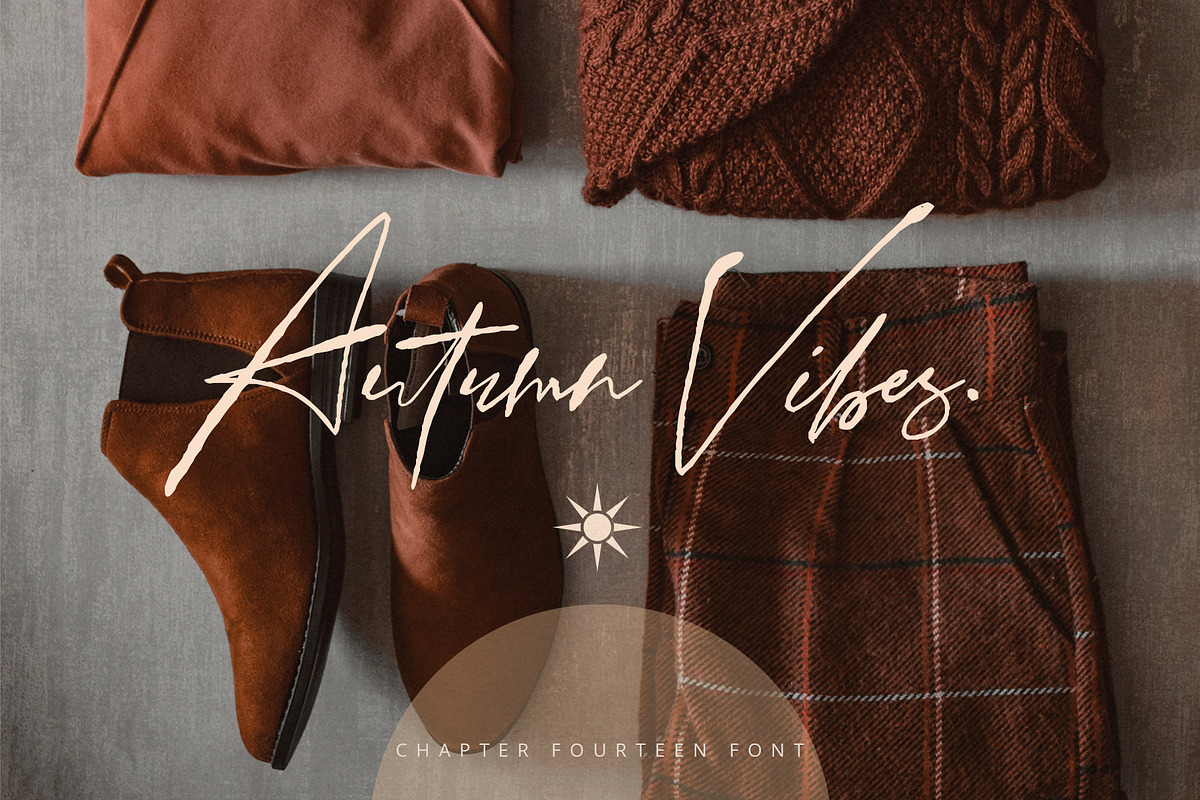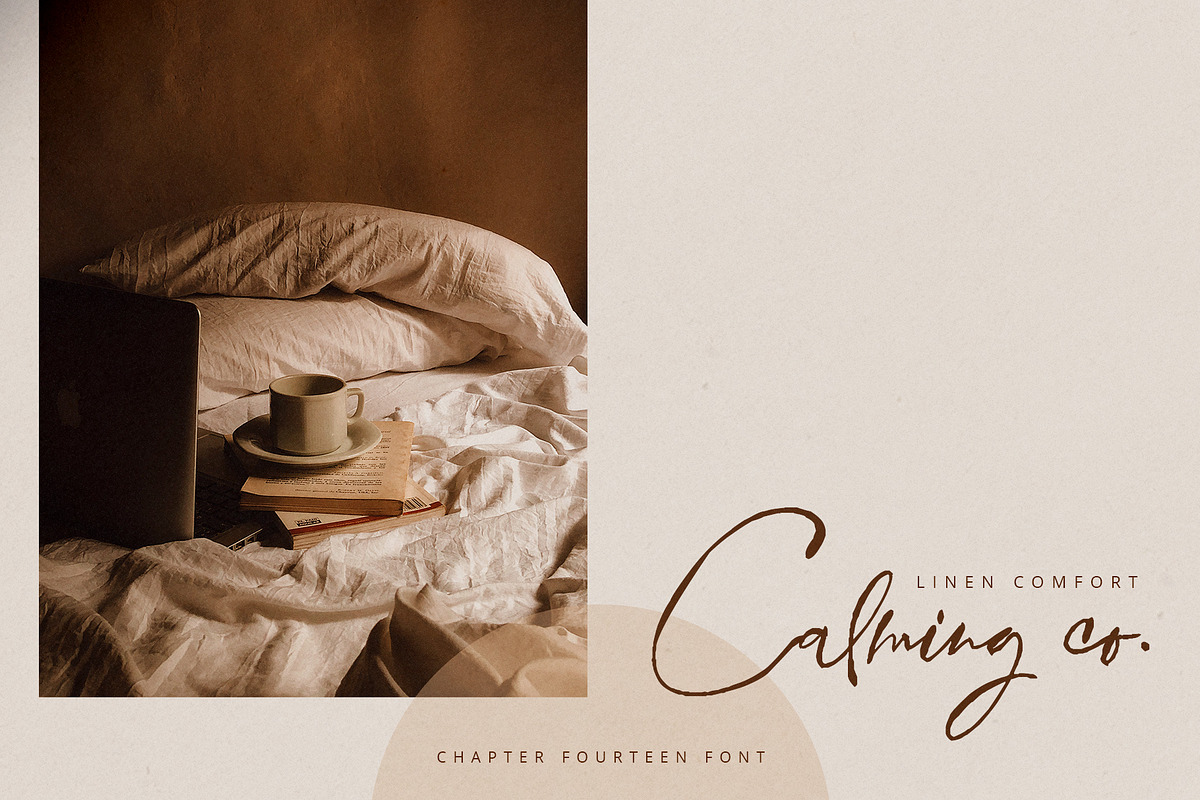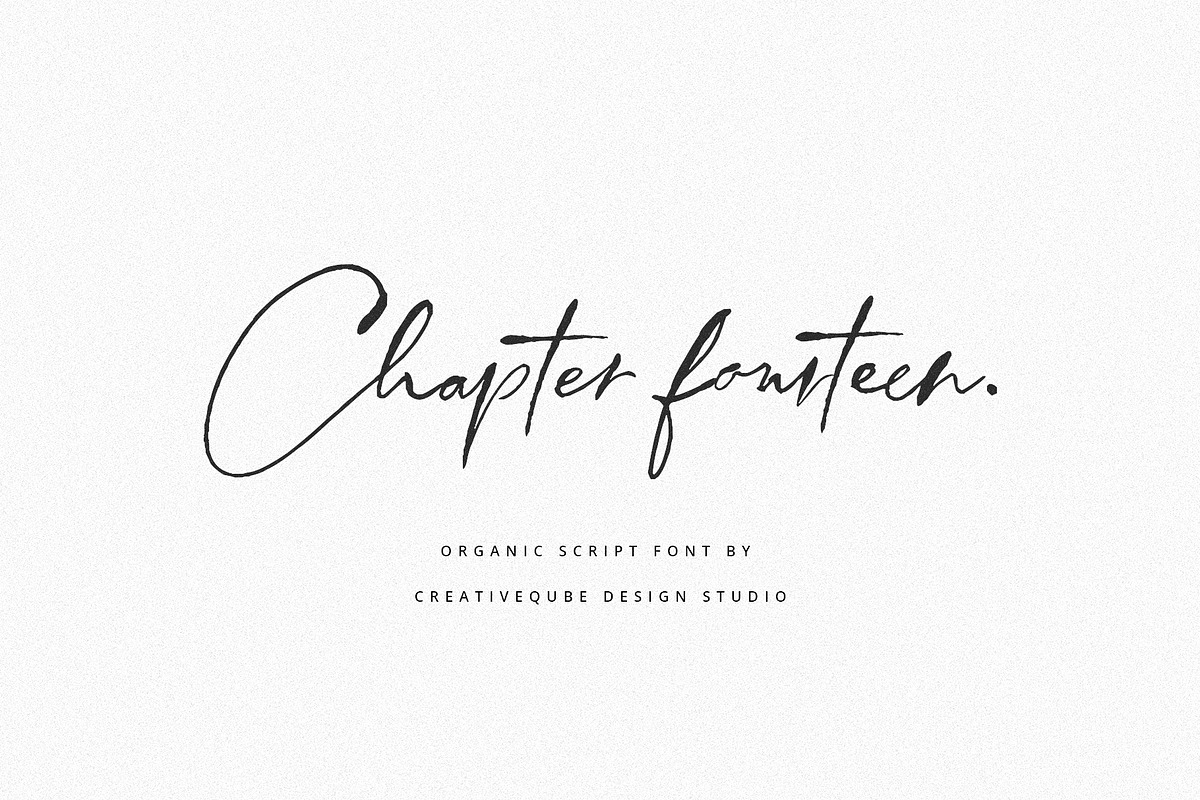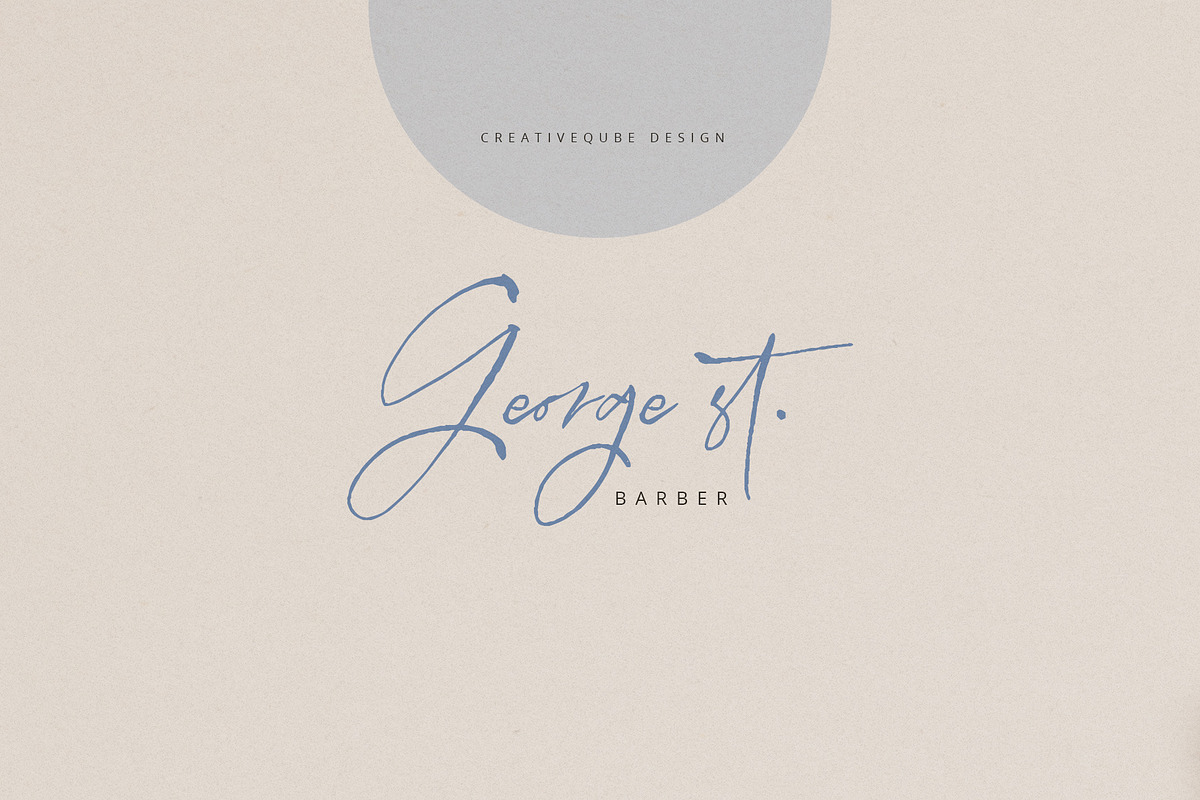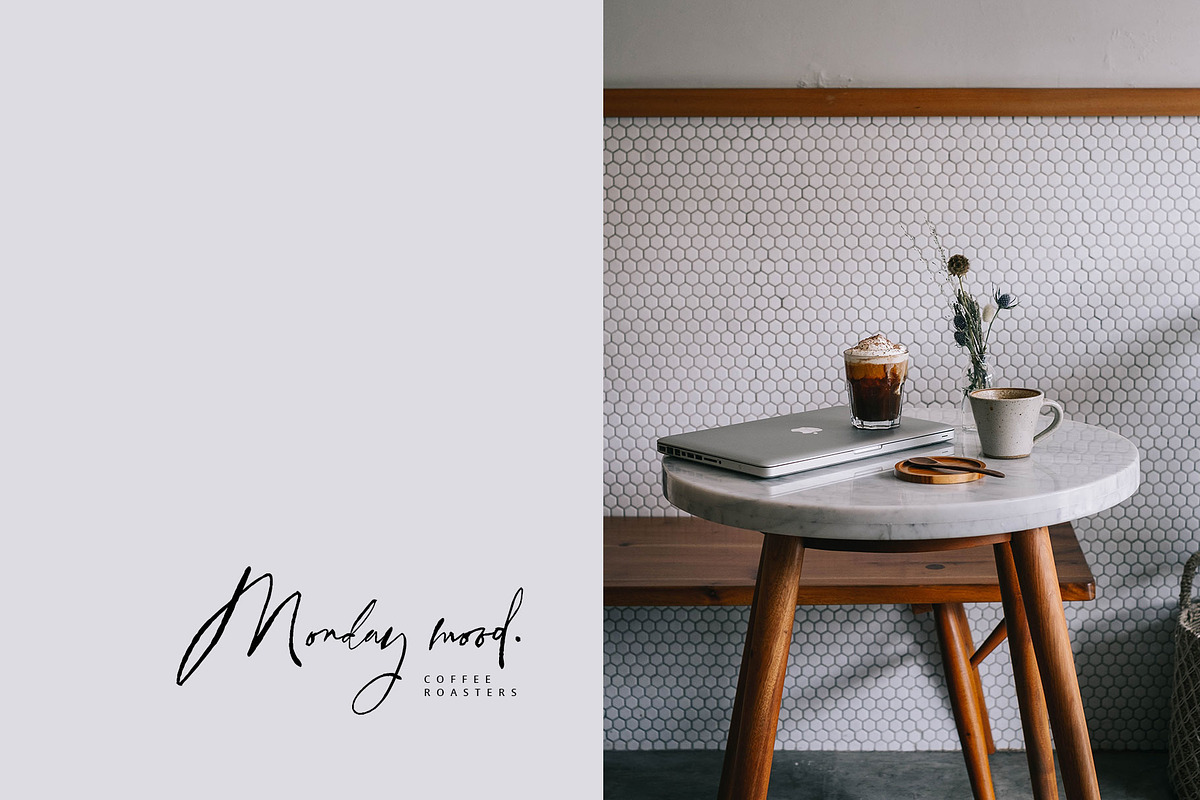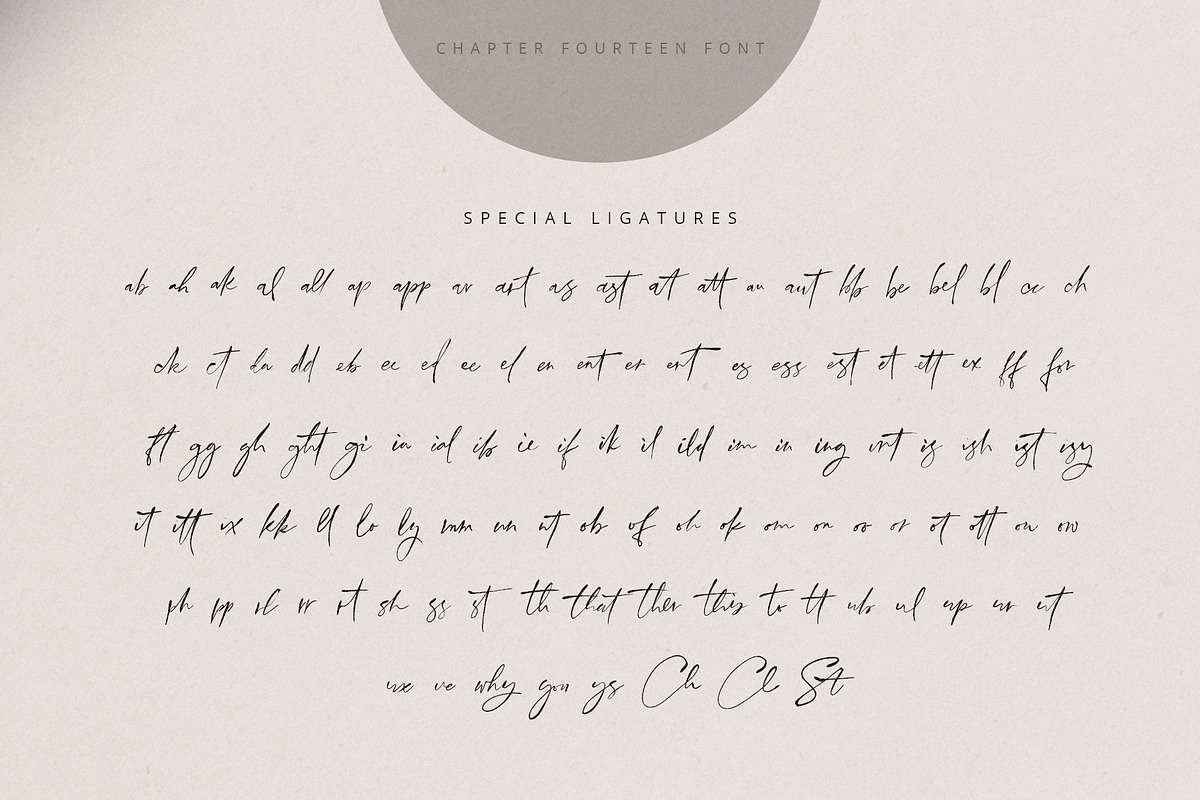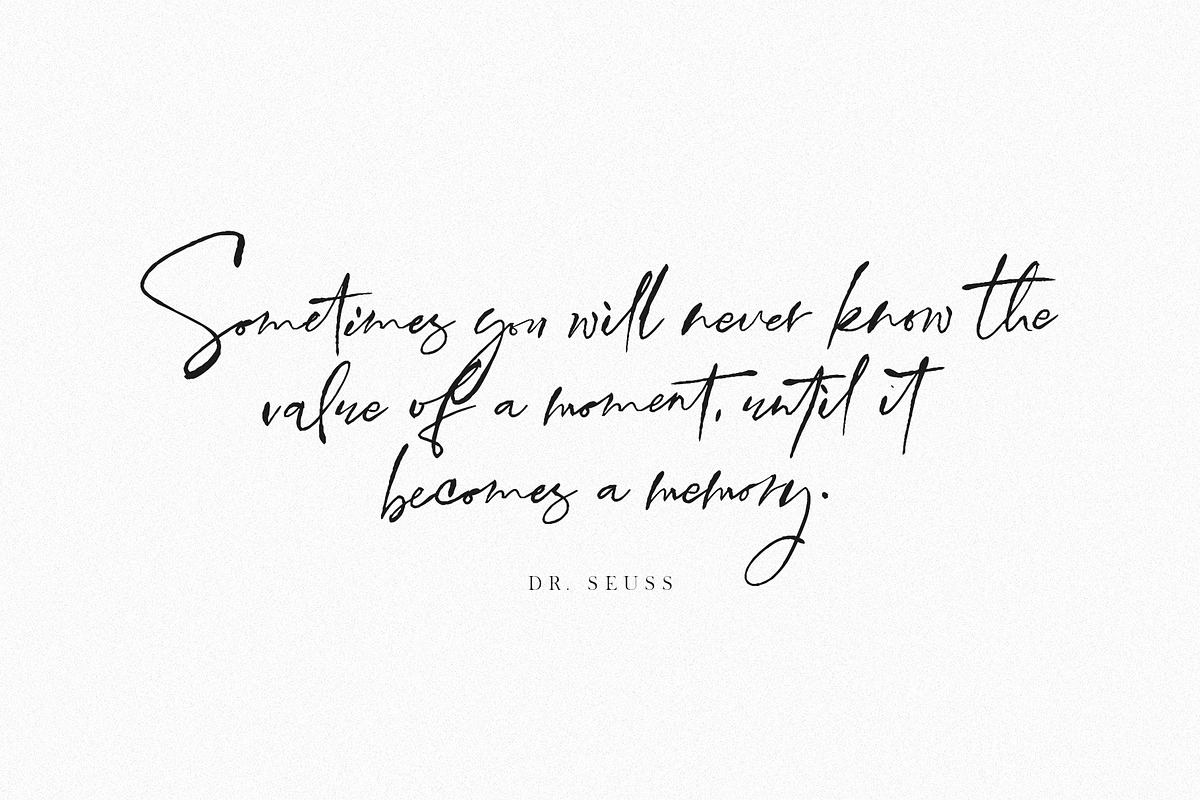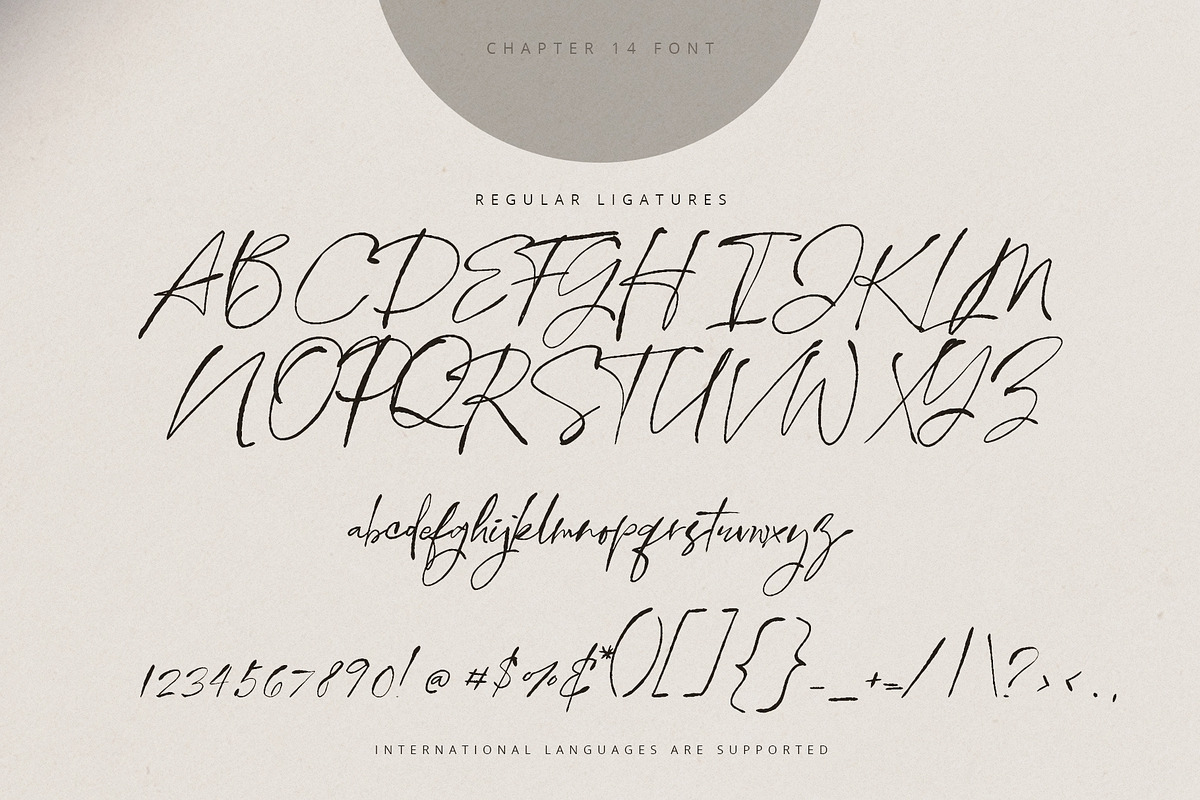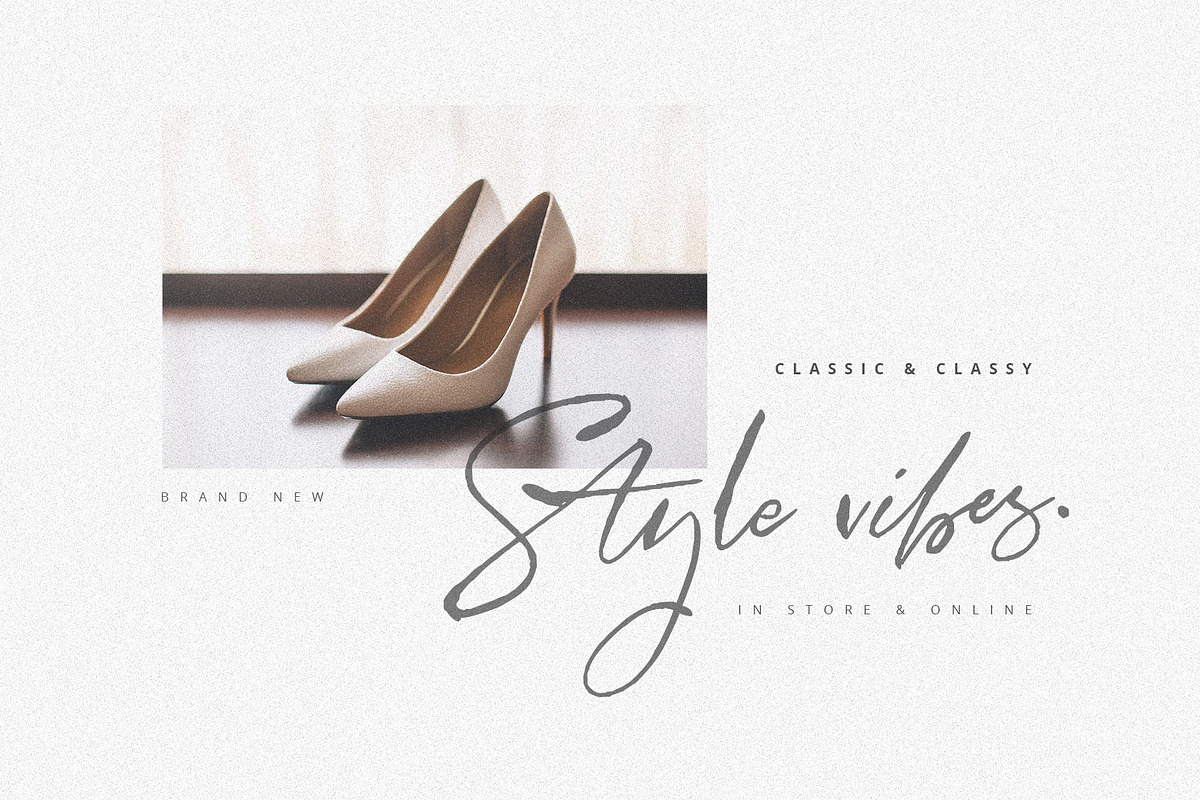
Chapter Fourteen Script Font
Chapter Fourteen Script is an inky imperfect modern calligraphy font loaded with extra ligatures that makes for stunning logos, quotes, wedding invites, blog posts, Instagram, and more!
Chapter Fourteen includes a full set of lowercase and uppercase ligatures, plus a bunch of special ligatures. International language is supported.